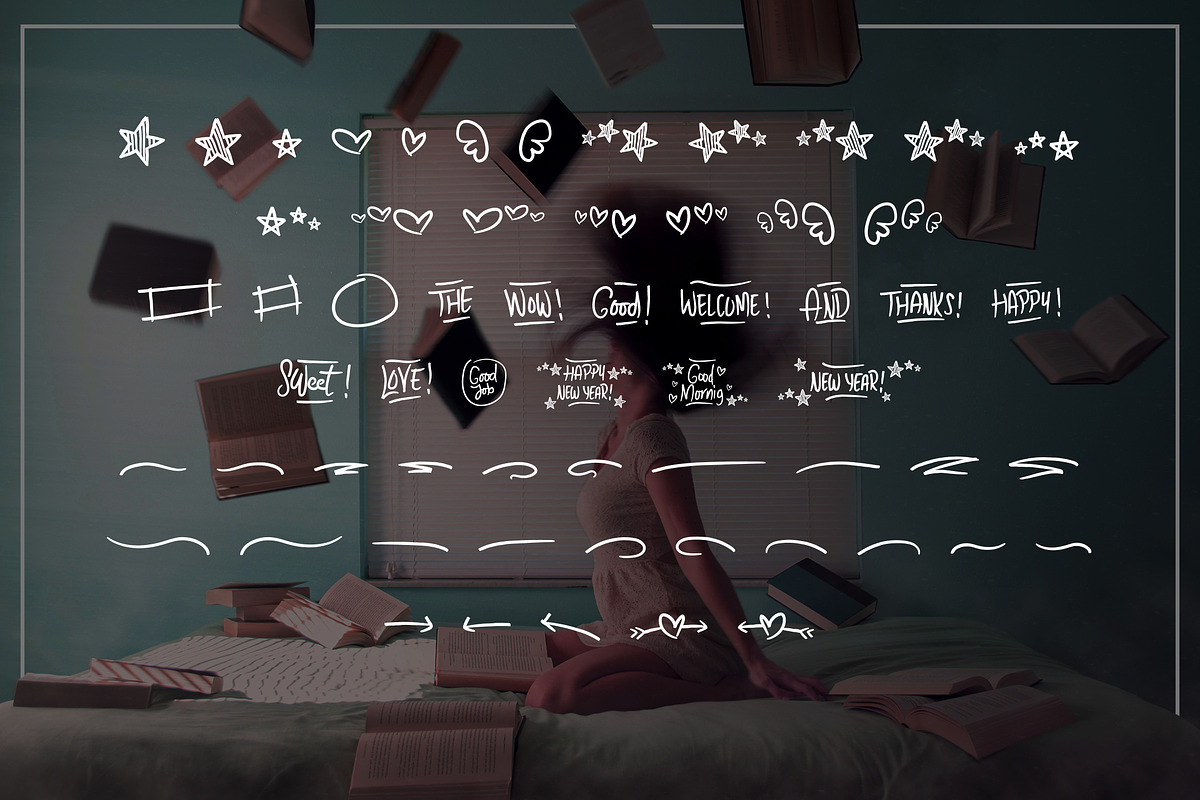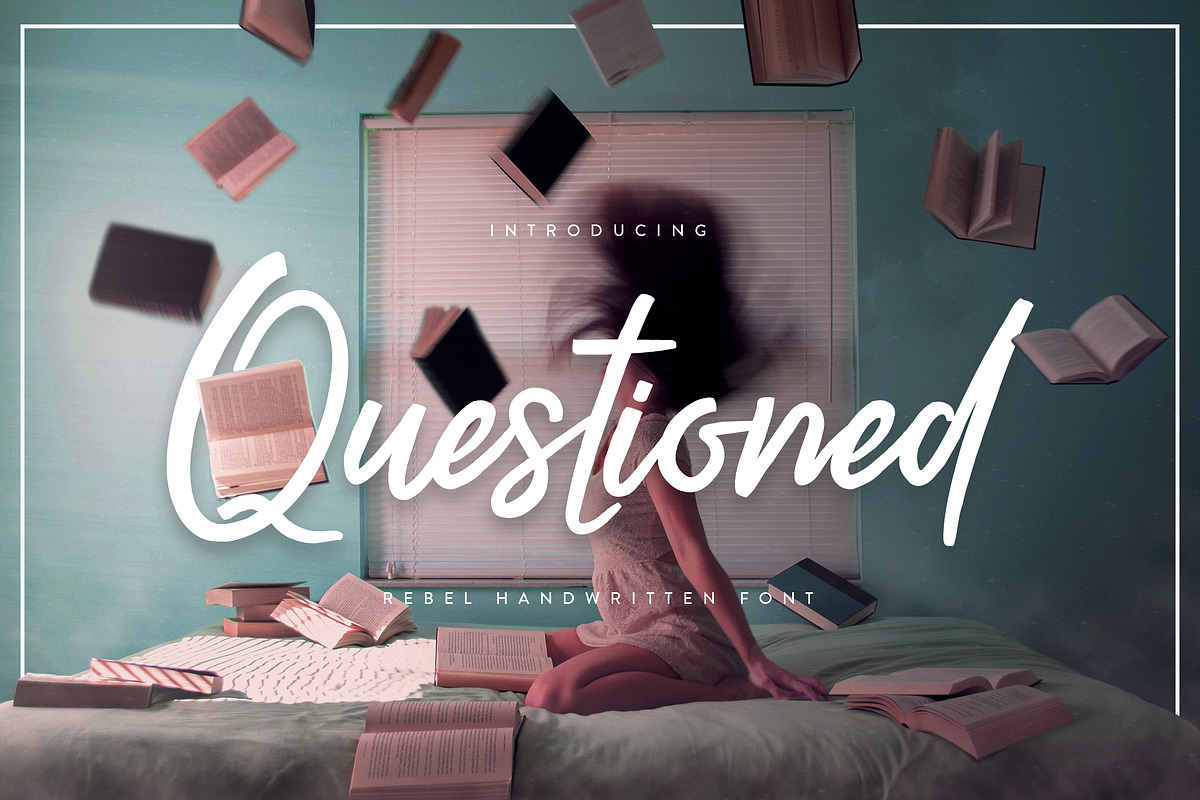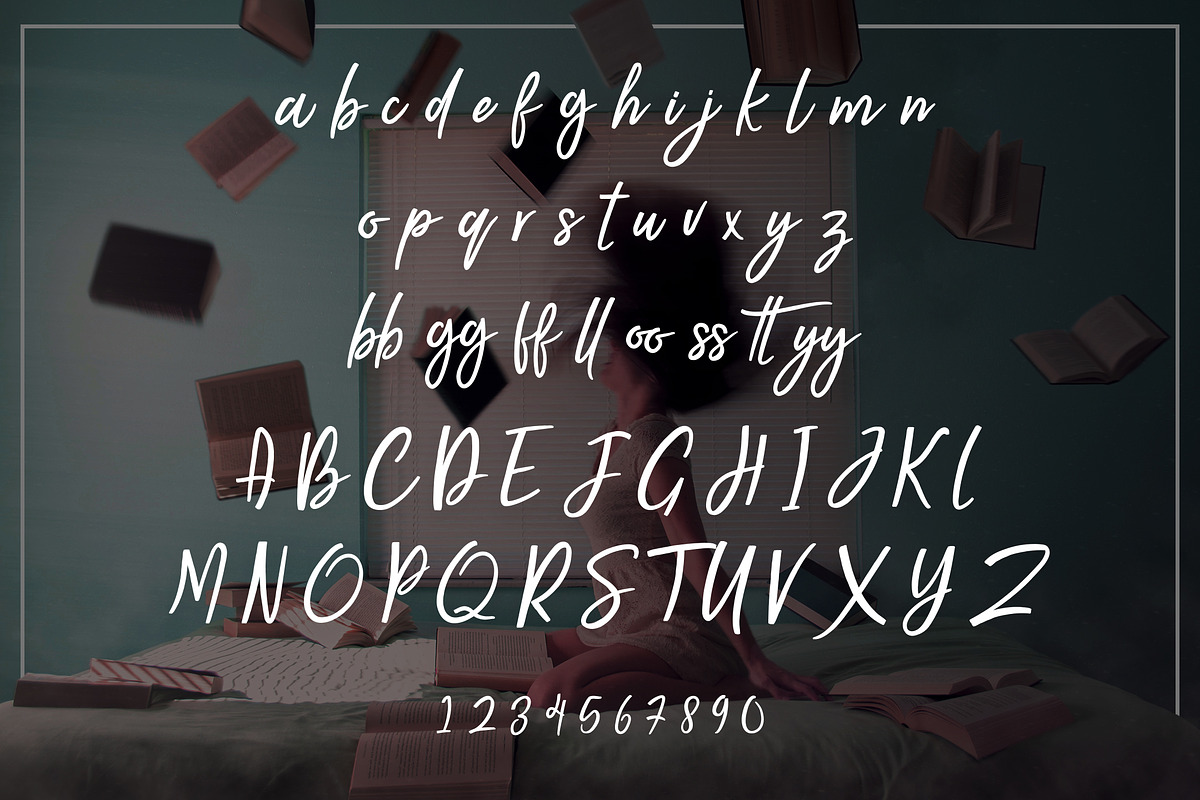
Questioned
Questioned by Font Bundles is a font selected for branding, posters, packaging, typography.
- With its energetic letters and quirky alternates, Questioned is a must have font for any collection!
Why Questioned is worth a look
Questioned by Font Bundles fits naturally into Branding, posters, packaging, typography.